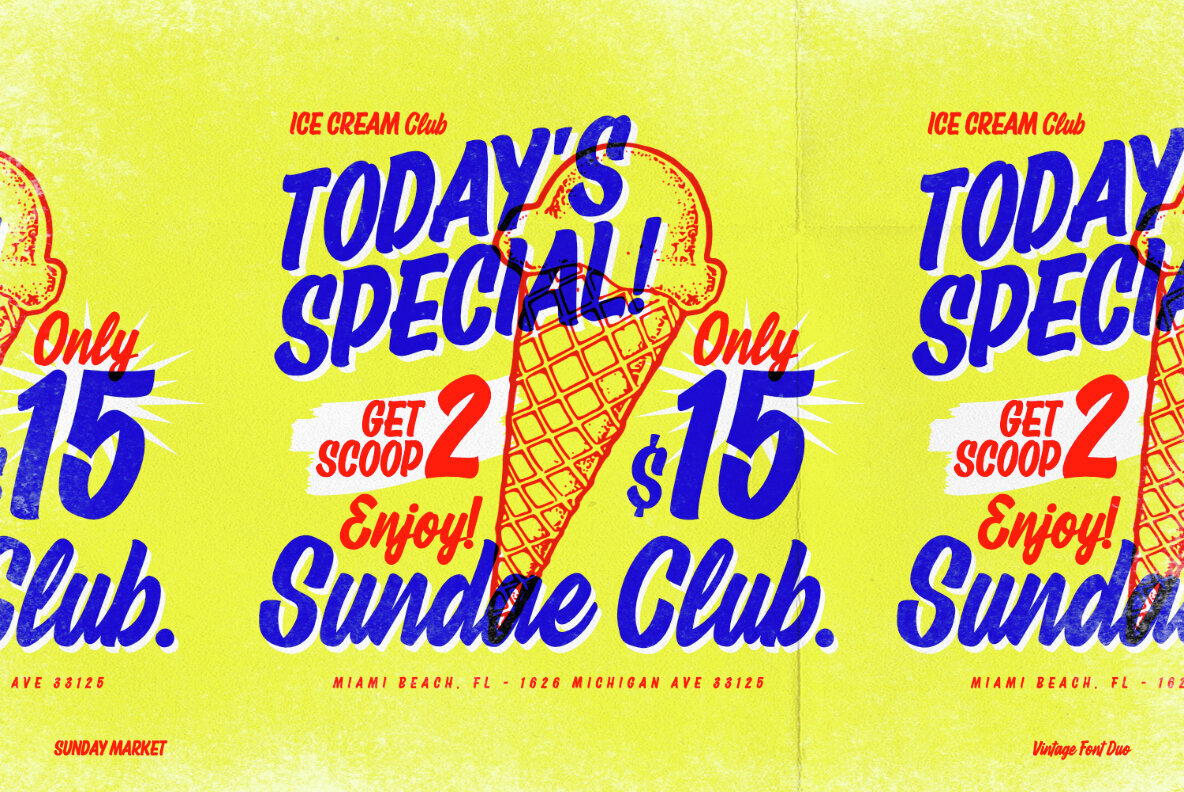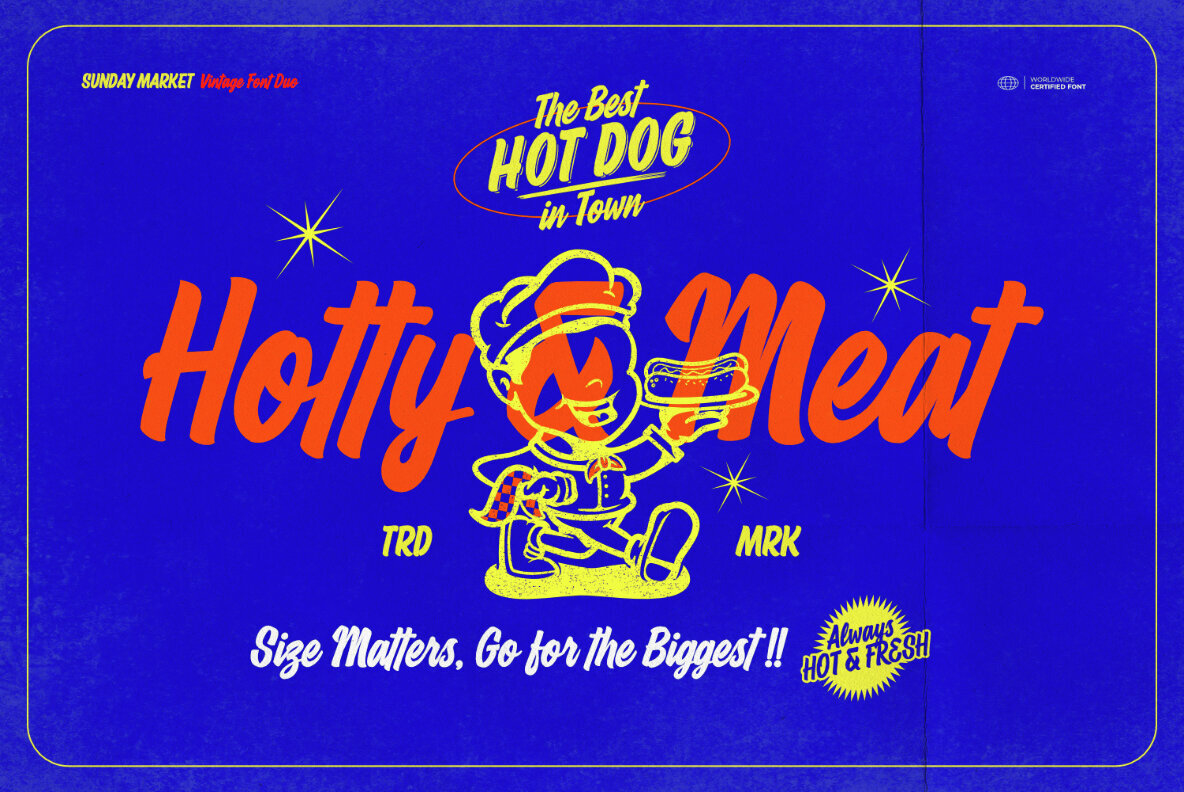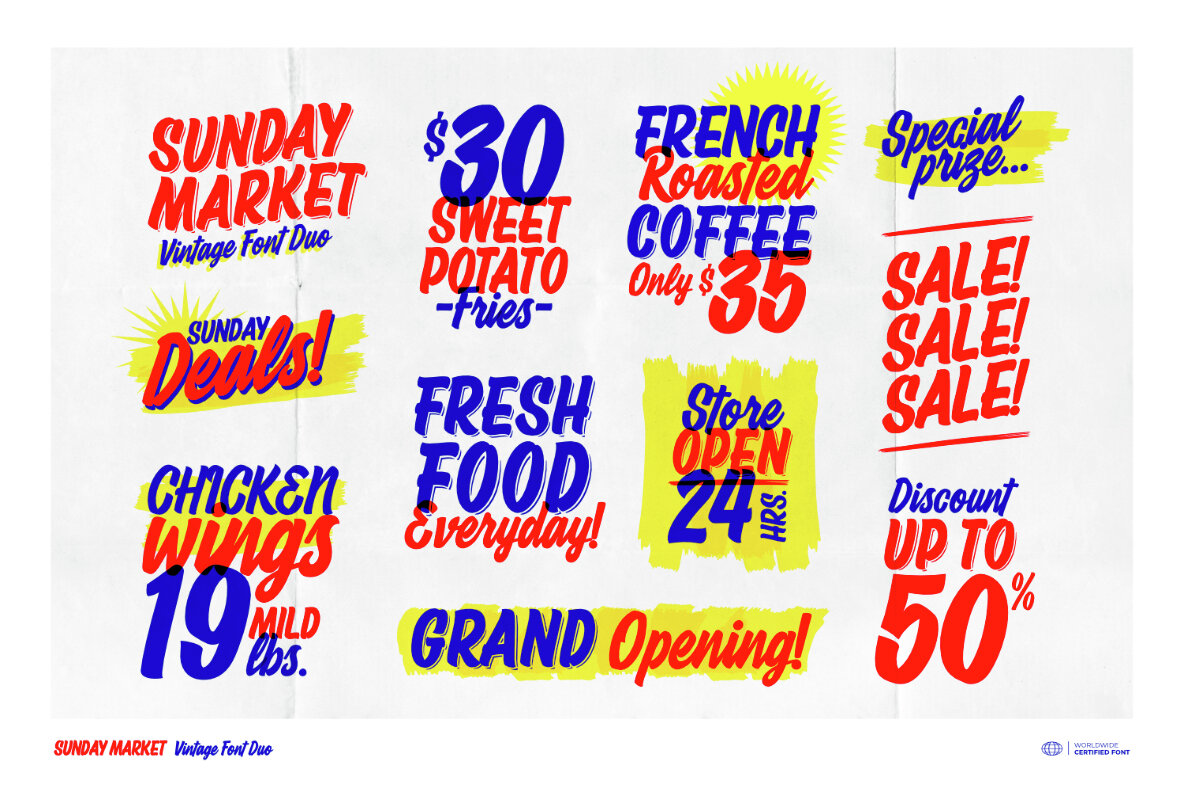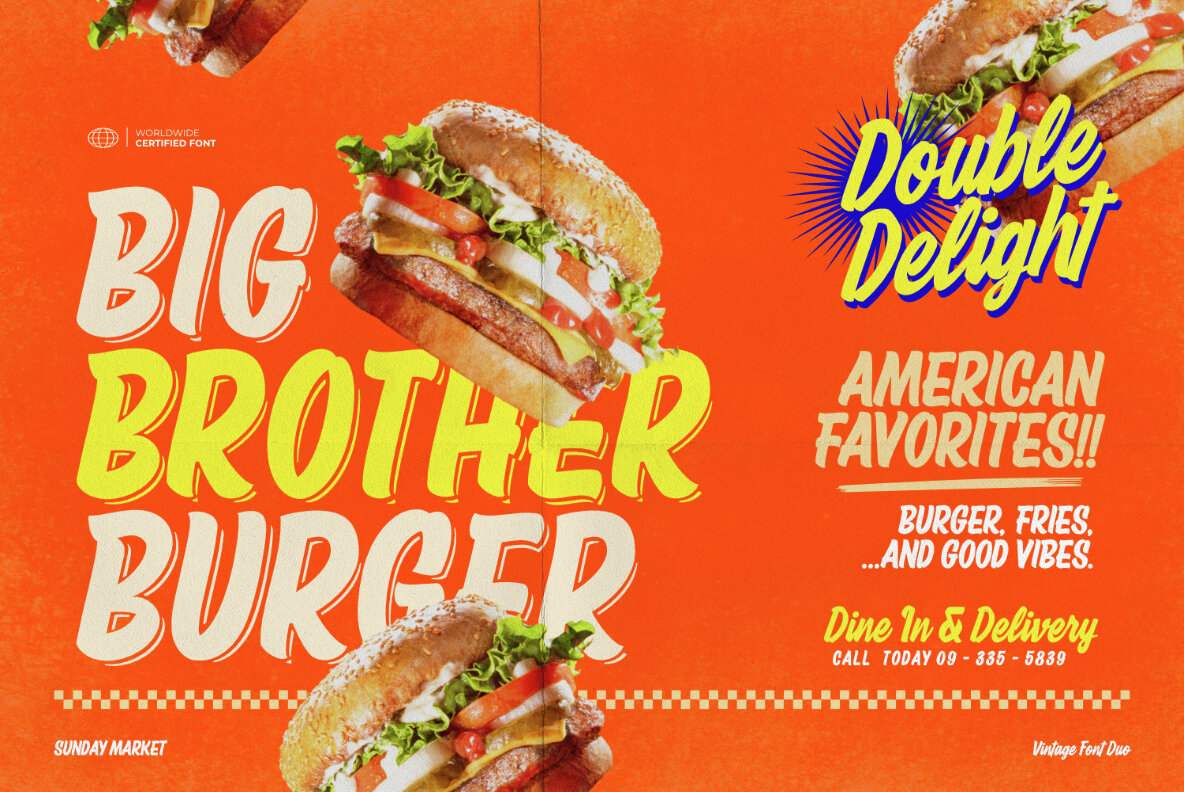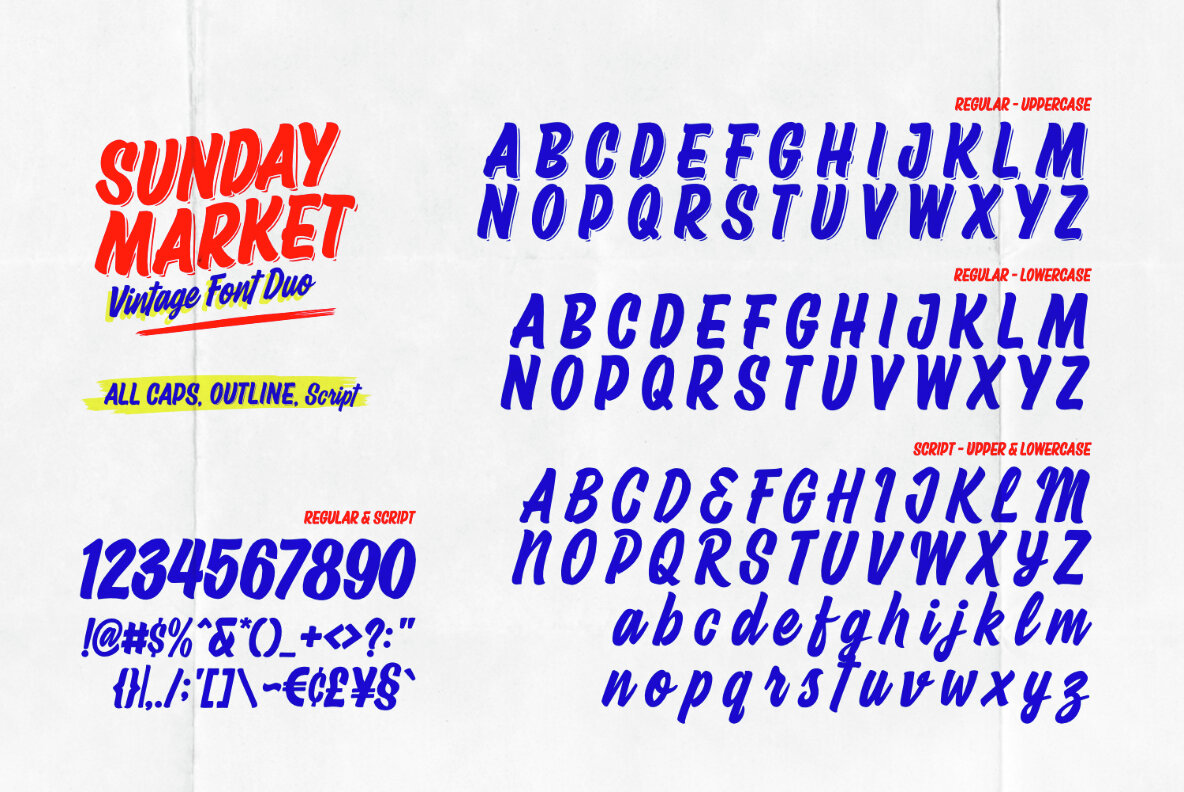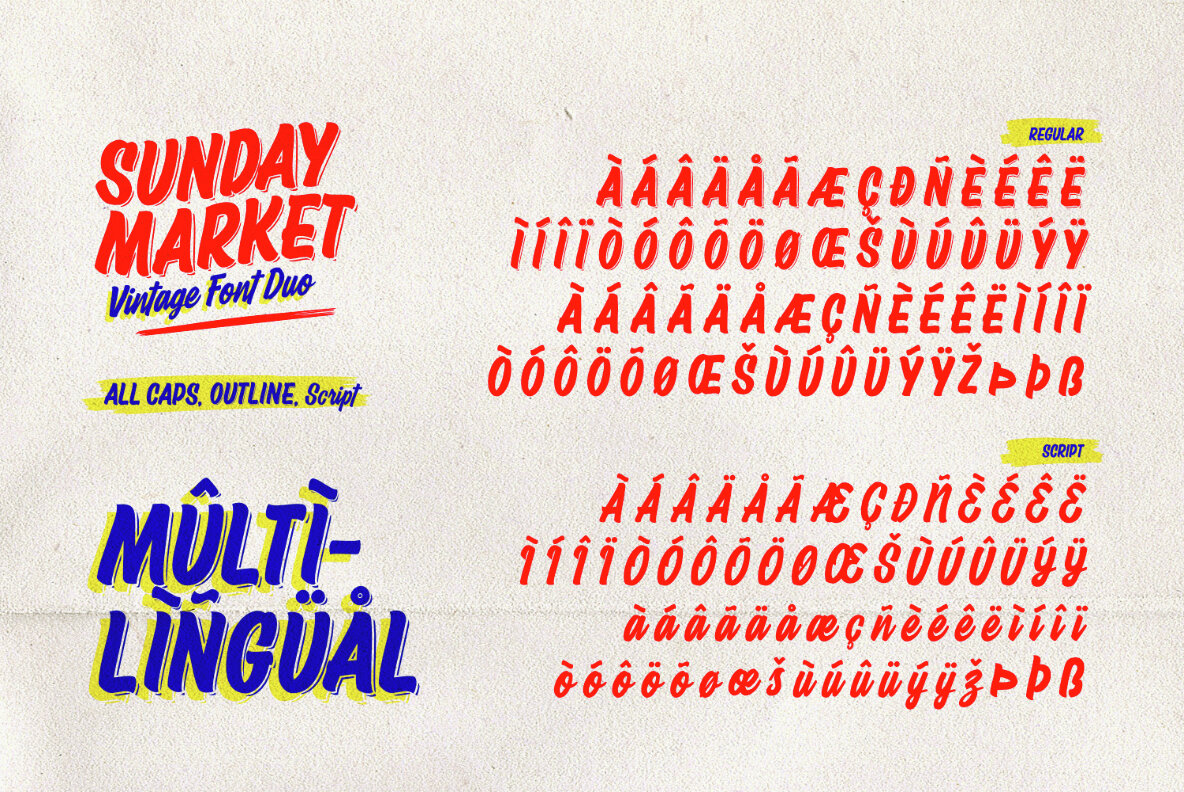
Sunday Market Font
Proudly Present Sunday Market - Vintage Font Duo, created by ikiiko. Sunday Market is a charming typeface set that encapsulates the nostalgic essence of the 1960s era. This font duo seamlessly blends retro vibes with a modern twist, making it an ideal choice for various design projects. There are two different styles in the Sunday Market font duo: a brush font and a script font. With its broad strokes and natural handwriting, the brush font has a vintage vibes that is reminiscent of hand-painted signs you often see in busy marketplaces & groceries. However, the script font, which has curved and flowing lines reminiscent of old-fashioned script lettering, exudes sophistication and beauty. This font is ideal for a wide range of designs. It gives character and flair to any design that features groceries, fast food restaurants, or vintage-themed posters. This font pair will instantly capture the nostalgic appeal of bygone eras, whether you're designing menus for a hip cafe, signage for a farmers' market, or promotional materials for an event with a vintage theme.